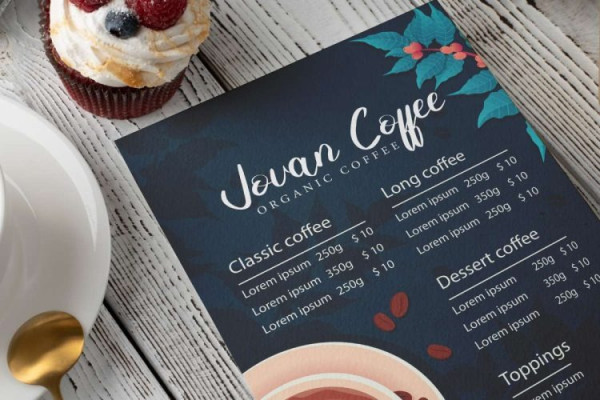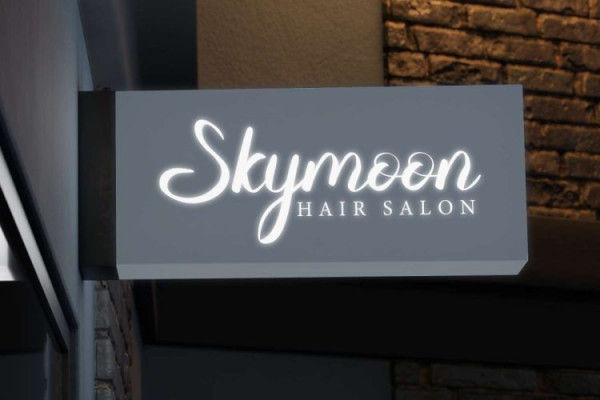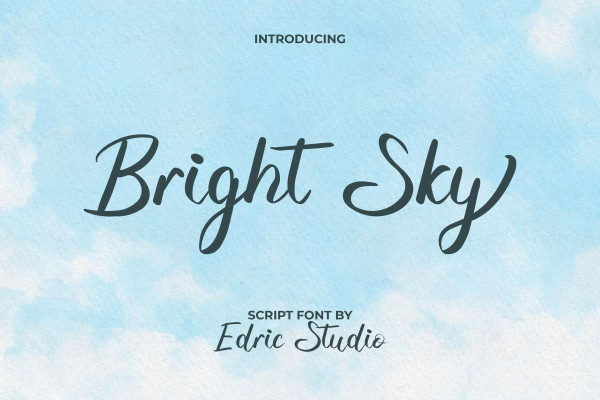
Bright Sky Font
Bright Sky Font is a casual handwriting script font inspired by the beauty of a clear sky. Typography carefully crafted to provide perfection in legibility and writing so it will suit any industry, such as author, coffee shop, craft, event organizer, furniture, hair salon, homeware, lodging, jewelry, printing, publishing, real estate, restaurant, skincare, spa, wedding, and many more.
Bright Sky Font comes with a full set of Uppercase and Lowercase Basic Characters, Number, a large range of Punctuation and Symbol. It has a stunning characters set, perfectly managed with well spaced and kerning. Bright Sky Font will be great for any projects (with extended license) including : brand logo, brochure, business card, catalog, cover, invitation, label, menu, product packaging, quote, signage, stationery, sticker, title, website, etc.